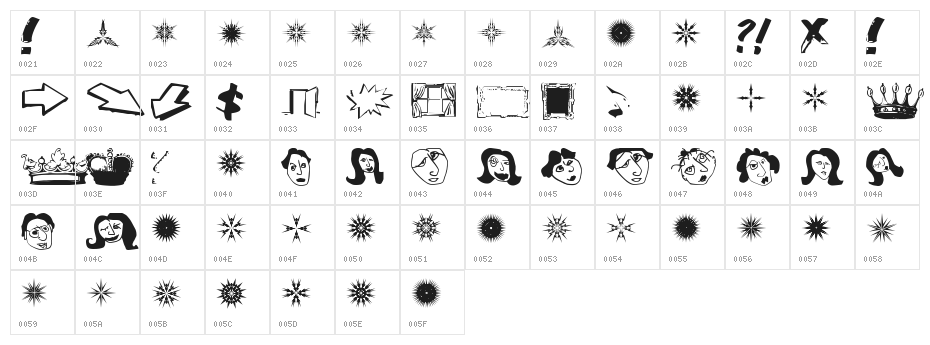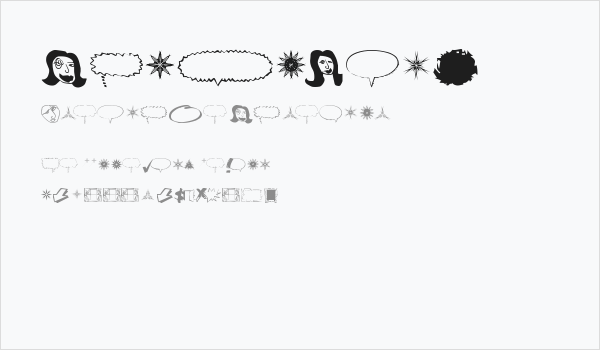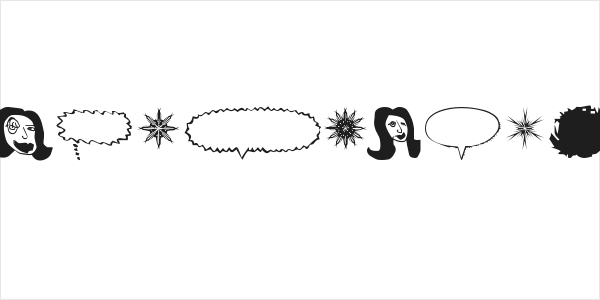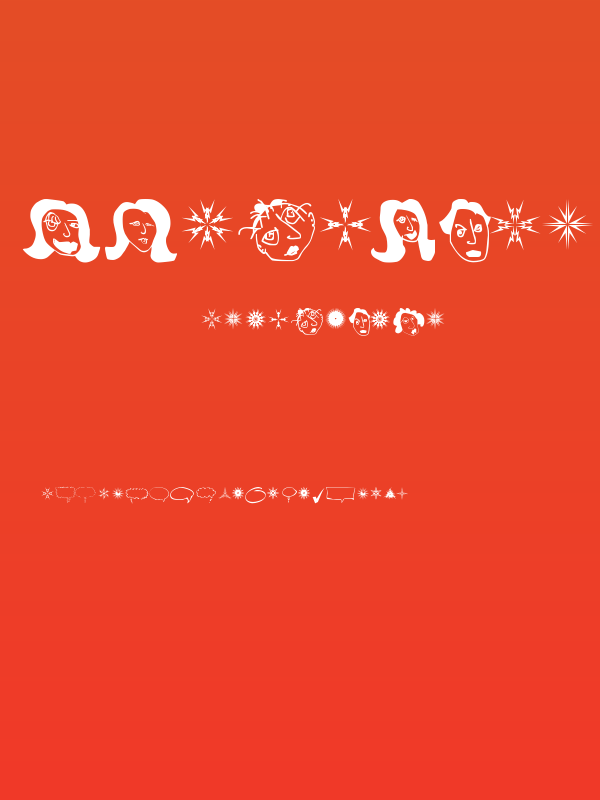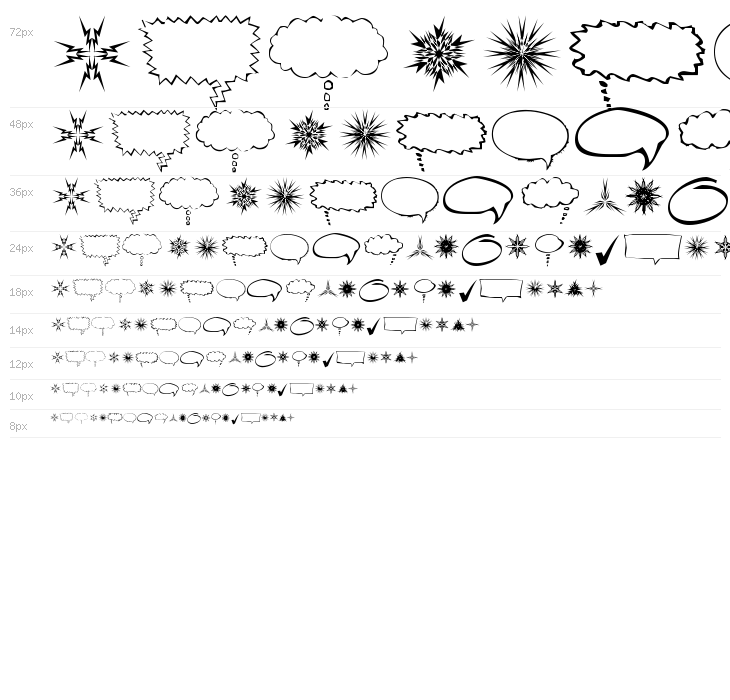
DingoBatz Font
DingoBatz Description
This is a decorative and playful collection of symbols and illustrations rather than a traditional font. It features a variety of quirky and abstract designs, including stylized faces, starbursts, speech bubbles, arrows, and other unique shapes. Each character is distinct and visually engaging, making it suitable for creative and artistic projects. The designs are bold and eye-catching, with a mix of thick and thin lines that add to their dynamic appearance.
Use CaseLogos, Posters, Artistic Designs
Proposed ProjectsIdeal for comic strips, graphic design projects, posters, and any creative work that requires unique and artistic symbols.